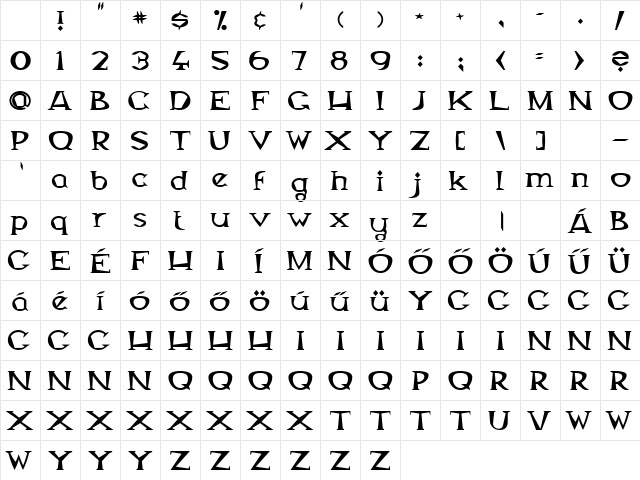
Magyar Serif Regular
Design Context for Magyar Serif
Magyar Serif carries the refined structure of traditional serif typography, with bracketed terminals and considered proportions that communicate credibility and craft.
Pro Tip: Use Magyar Serif for editorial body copy and considered headline work. Pair with a neutral sans for UI elements or captions to create a classic hierarchy.